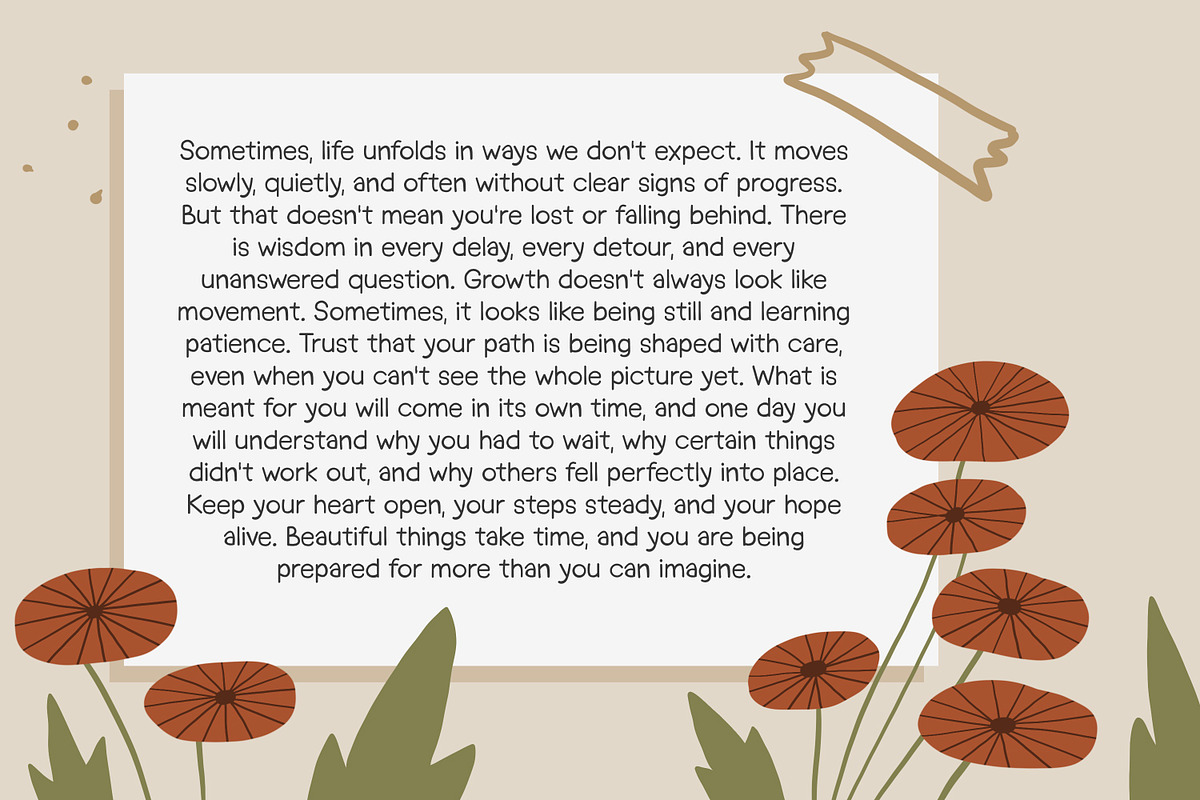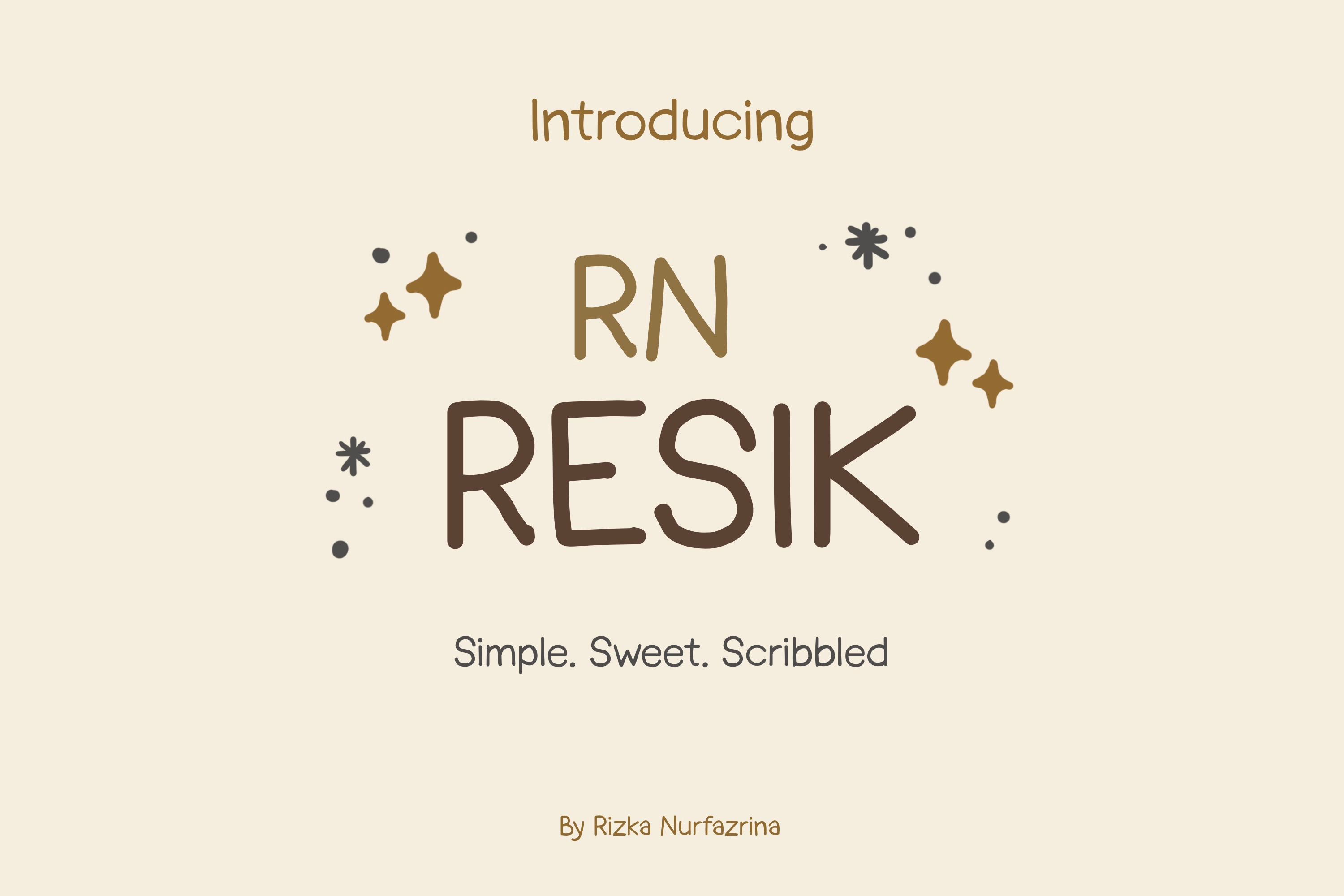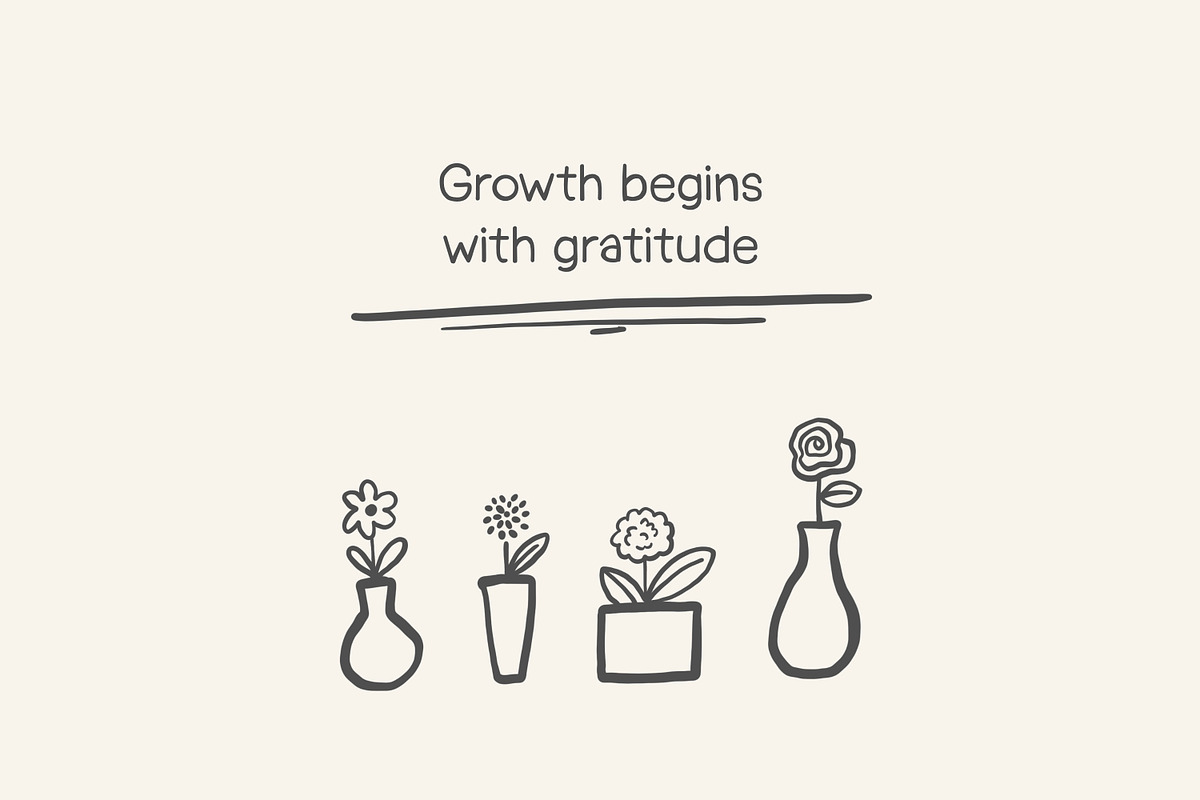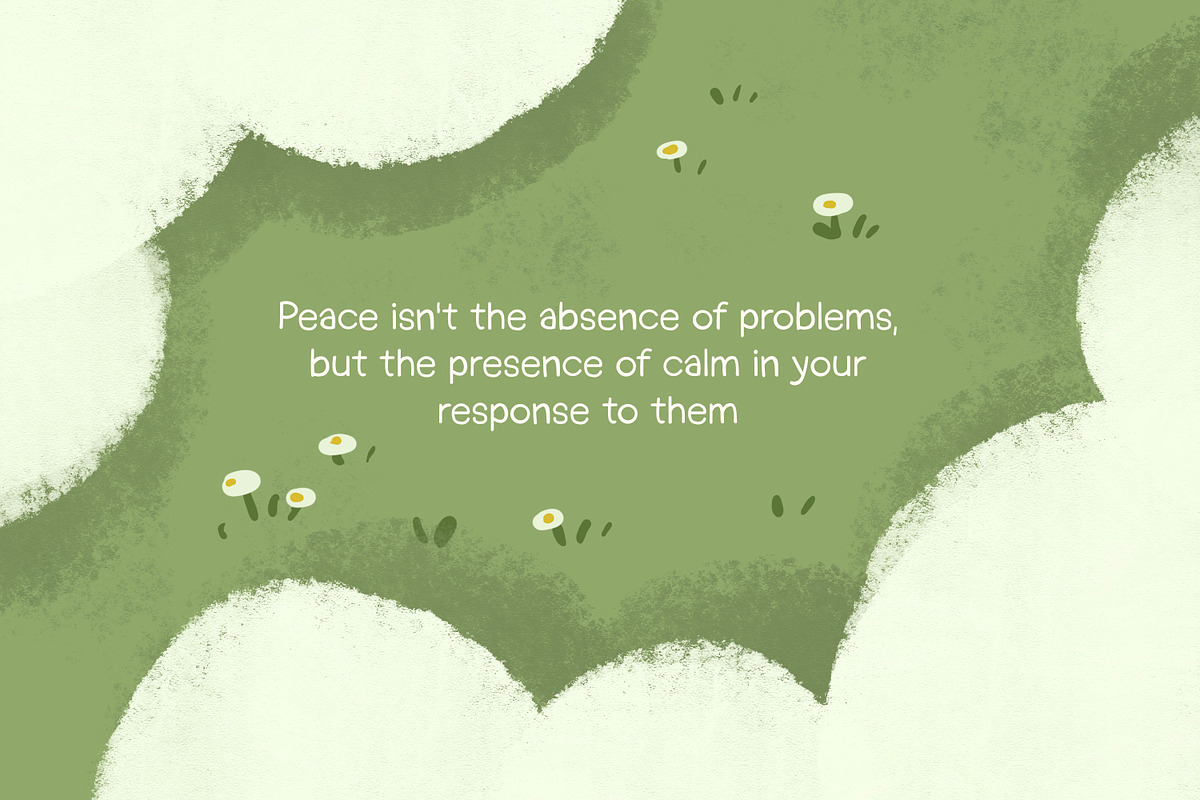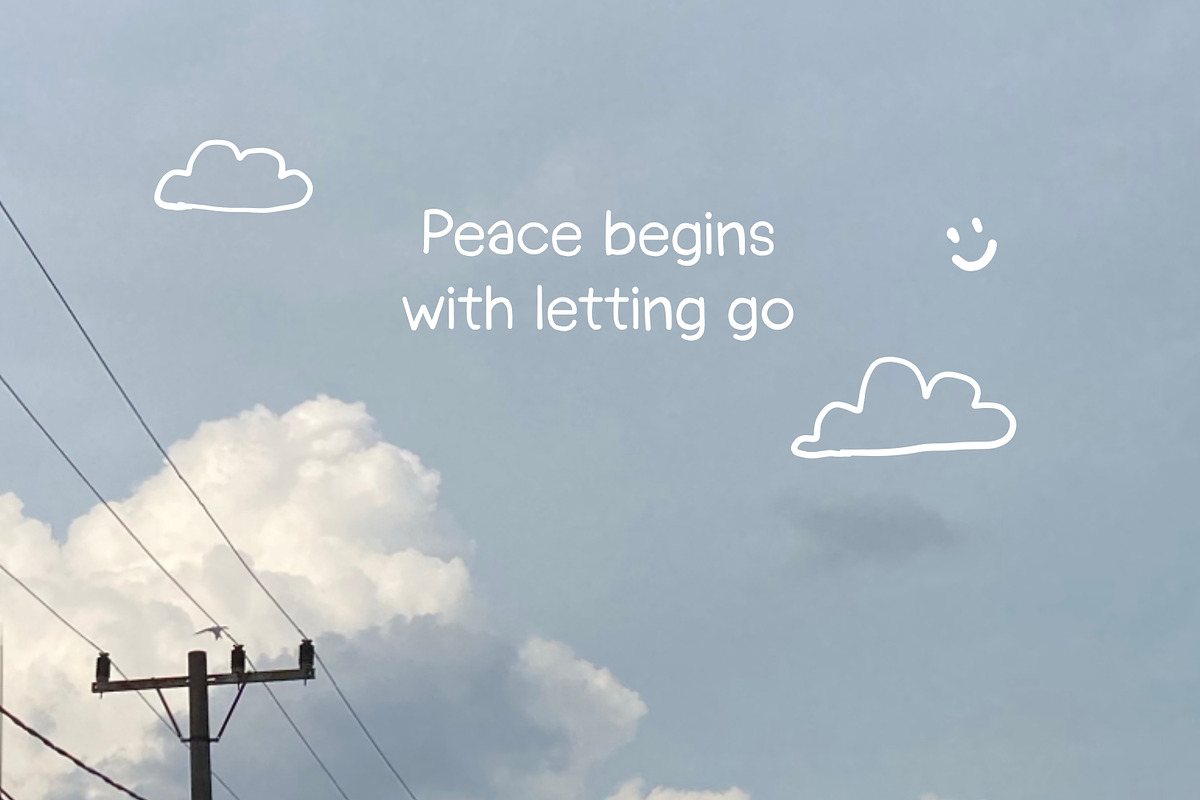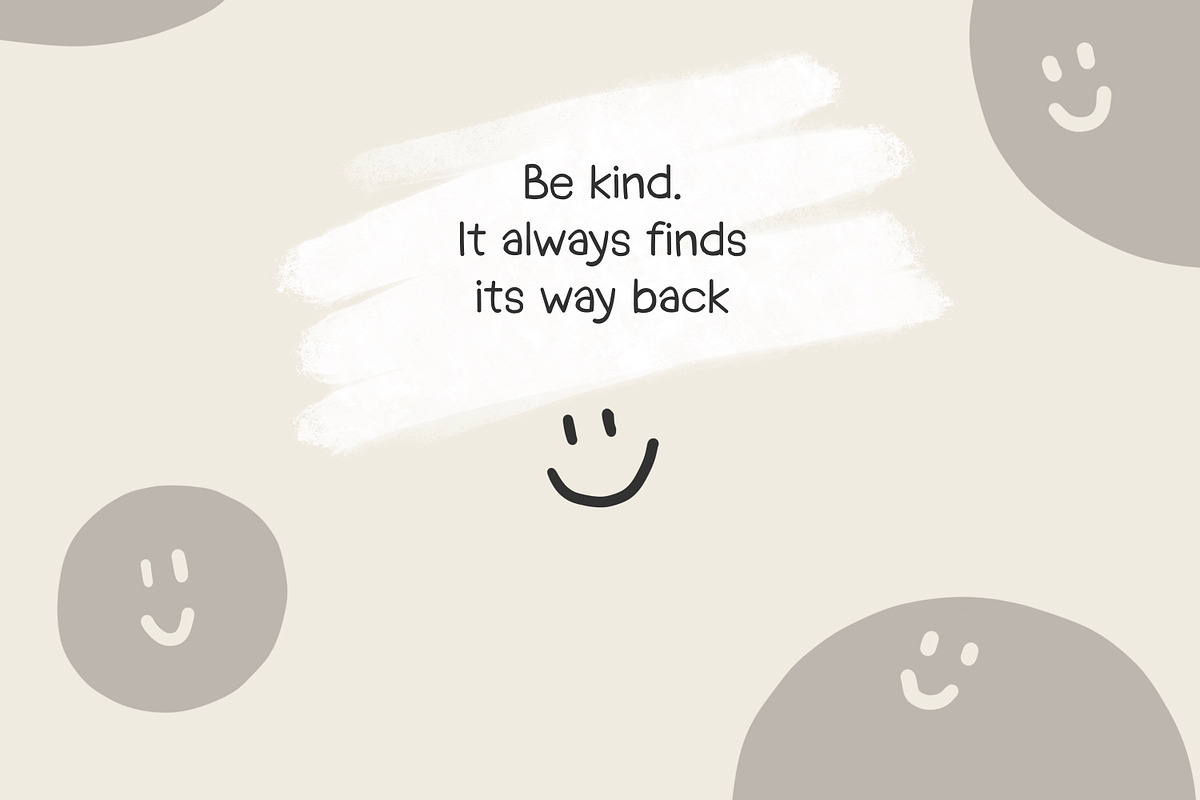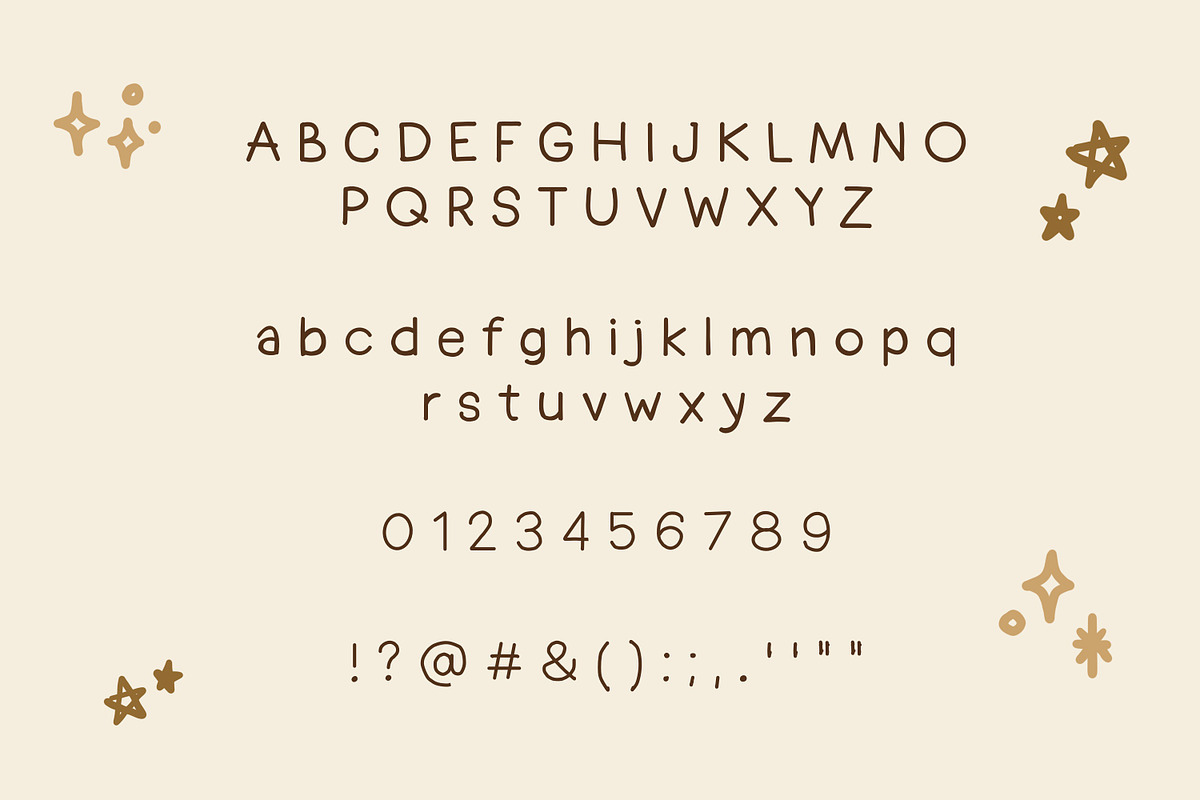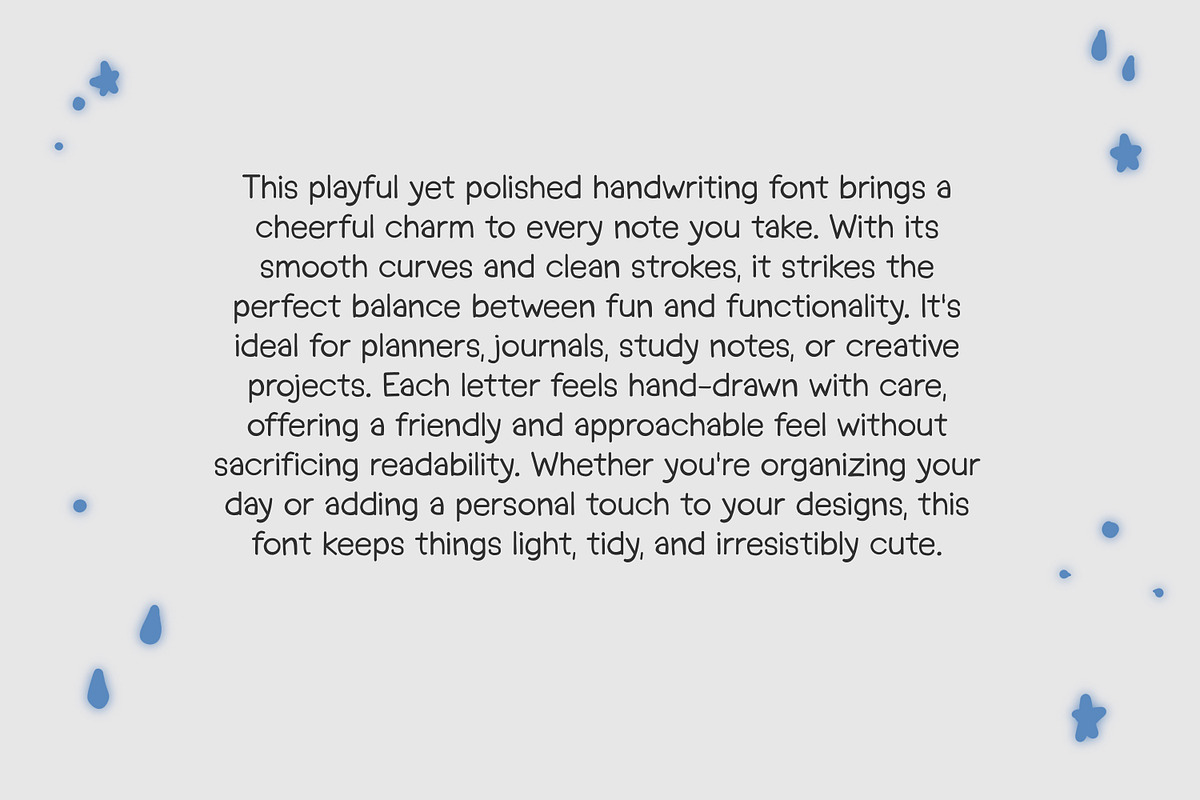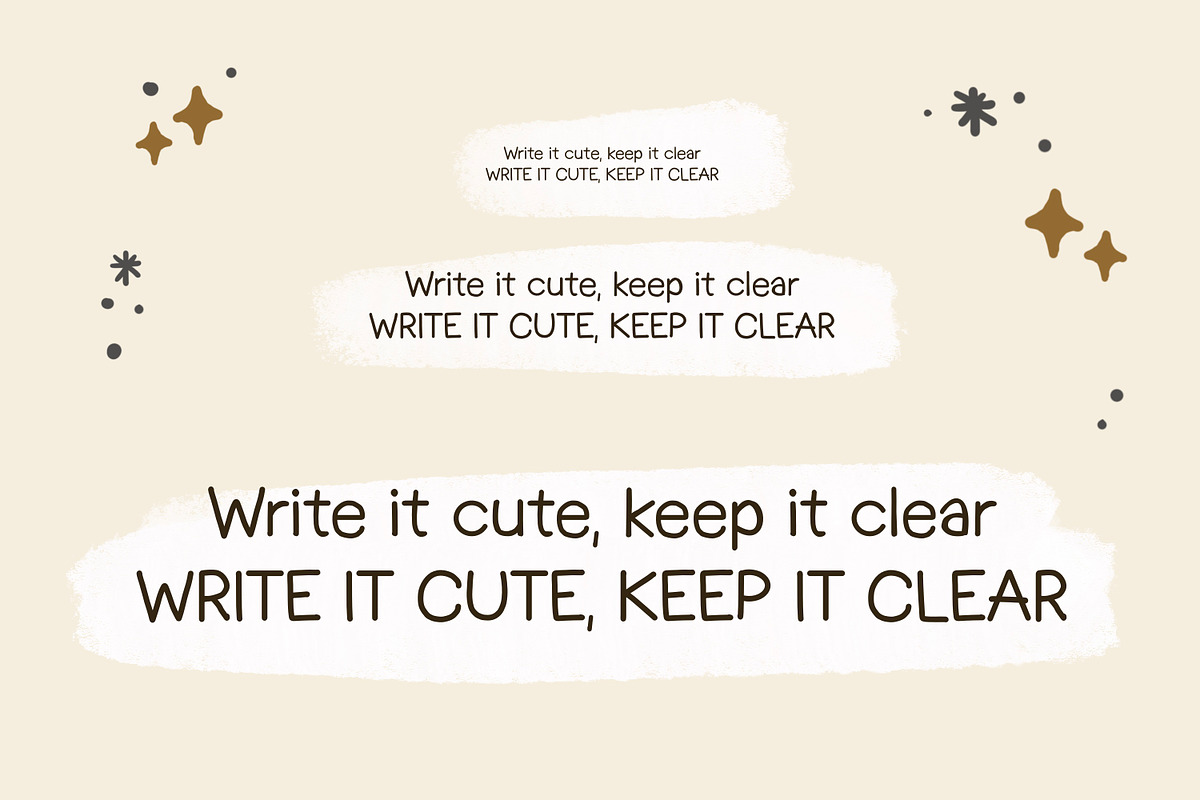
RN Resik - Handwriting font
Say hello to RN Resik, a super cute handwritten font that brings a playful and personal feel to your creative projects. With smooth, casual strokes and a cozy handwritten style, this font is perfect for notes, journals, planners, social media posts, and more. Whether you're designing printable study guides or digital stickers, RN Resik adds that sweet notebook-style charm to every word.
Great for:
- Note-taking and study templates
- Journals and digital planners
- Social media quotes and captions
- Stickers, scrapbooks, and other fun projects
Keep your designs cute and personal with RN Resik, your go-to font for everything fun and handwritten.